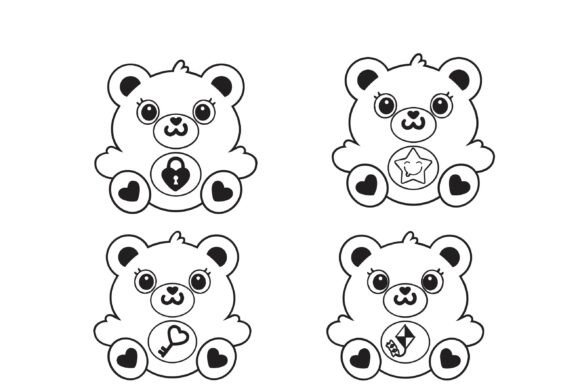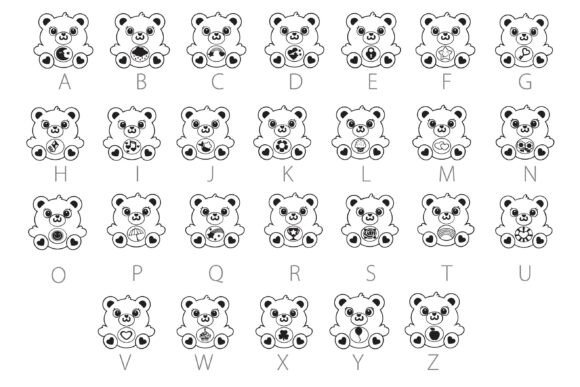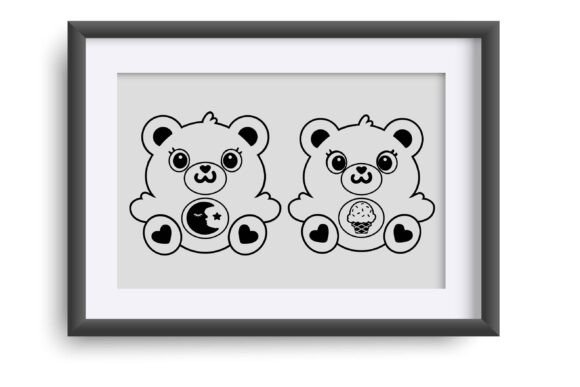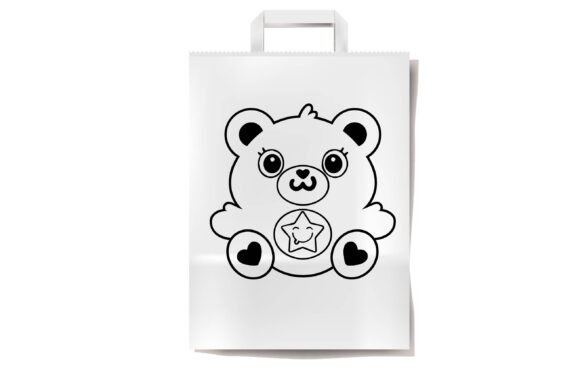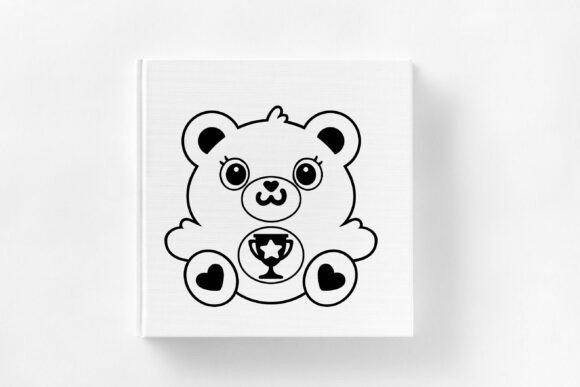
Elevate Your Designs with Friend Bears Font: The Ultimate Dingbat Font for Creative Projects
Are you looking for a way to instantly elevate your projects and add a touch of fun and personality to your designs? Look no further than the Friend Bears Dingbat Font, featuring 26 adorable bears with different, fun elements on their chests. This versatile font is a game-changer for designers and crafters, offering a wide range of possibilities for creative expression.
The Power of Dingbat Fonts
Dingbat fonts are a designer’s secret weapon, bringing flair, fun, and functionality to any creative work. These fonts are more than just symbols – they’re ready-to-use mini graphics that can save you time, simplify your process, and make your visuals pop. With the Friend Bears Font, you can add a playful and whimsical touch to your designs, making them stand out from the crowd.
Endless Possibilities for Creative Projects
Whether you’re working on invitations, packaging, social media graphics, newsletters, labels, tags, or merchandise, the Friend Bears Font is the perfect tool for the job. This font delivers scalable, stylish icons with zero need for image files or graphic software, making it easy to use and versatile. You can use it to create:
- Cute and playful invitations for parties and special events
- Eye-catching packaging for products and brands
- Engaging social media graphics that drive interaction and shares
- Informative newsletters and labels that capture attention
- Fun and quirky merchandise, such as t-shirts, mugs, and tote bags
Key Features of Friend Bears Font
The Friend Bears Font has several key features that make it a must-have for designers and crafters:
- Easy to use: simply type a letter to generate a unique graphic
- Vector-quality icons: perfect for print or digital use
- Consistent line weight and style: for a cohesive look
Benefits of Using Dingbat Fonts
Using dingbat fonts like Friend Bears Font offers several benefits, including:
- Time-saving: no need to search for and download individual graphics or icons
- Streamlined workflow: easily create and edit designs without switching between software
- Increased creativity: with a wide range of graphics and icons at your fingertips
- Consistency: ensures a cohesive look across all your designs
Tips for Getting the Most Out of Friend Bears Font
To get the most out of the Friend Bears Font, try the following:
- Experiment with different colors and textures: to add depth and interest to your designs
- Mix and match graphics: to create unique and eye-catching compositions
- Use the font in combination with other design elements: such as patterns, shapes, and typography
- Take advantage of the font’s vector quality: to ensure crisp and clear graphics at any size
In conclusion, the Friend Bears Dingbat Font is a versatile and fun tool that can elevate your designs and add a touch of personality to your projects. With its easy-to-use interface, vector-quality icons, and compatibility with popular design software, this font is perfect for designers and crafters of all levels. Whether you’re looking to create invitations, packaging, social media graphics, or merchandise, the Friend Bears Font is sure to become a go-to resource in your design toolkit.